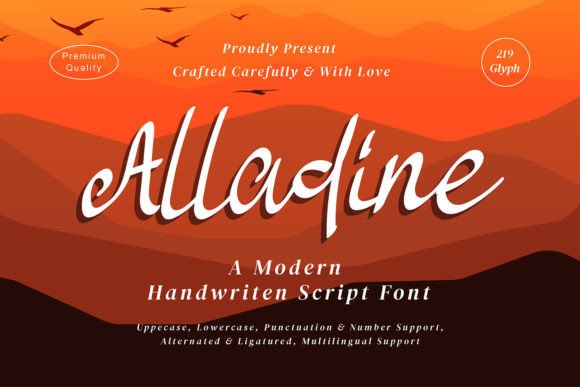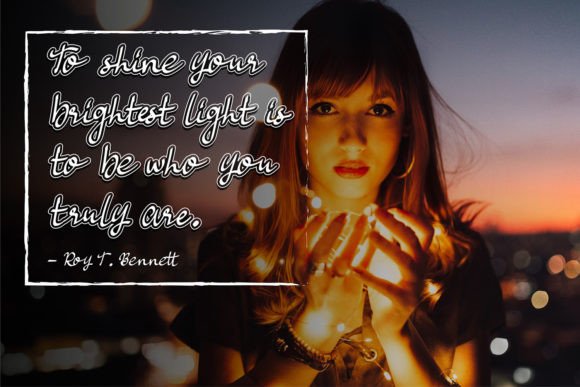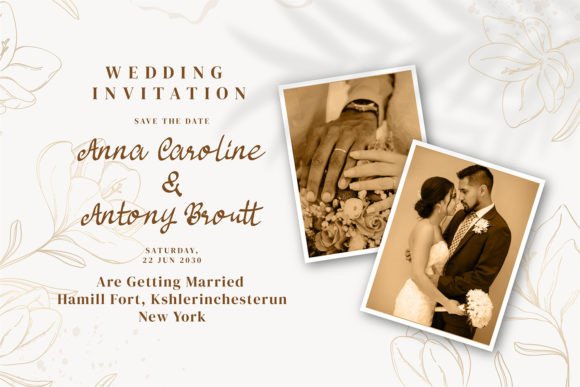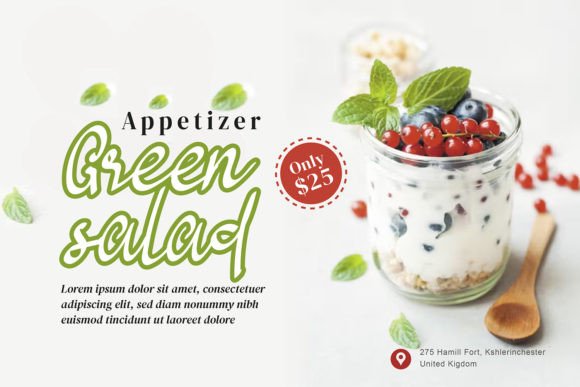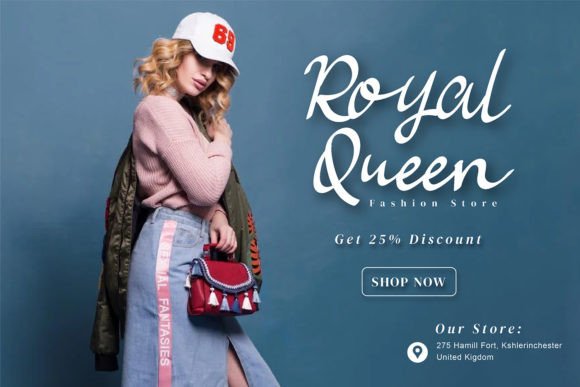
About Alladine Font
Alladine exudes both charm and elegance, making it a versatile and visually stunning choice for various design projects. This font shines on wedding invitations, thank you cards, quotes, greeting cards, logos, business cards, and any other design that benefits from a sophisticated handwritten touch.
The charm and elegance of Alladine make it well-suited for special occasions and refined branding. Whether you’re crafting elegant wedding stationery or creating a polished business card, Alladine stands out as a font that adds a touch of grace and sophistication.
Imagine Alladine enhancing your designs, whether it’s on exquisite wedding invitations, heartfelt thank you cards, or any project that requires an elegant handwritten feel. The font becomes a key element that not only adds charm but also infuses a sense of timeless elegance into your creations.
In summary, Alladine is more than just a font; it’s a design asset that brings charm and elegance to your projects. Embrace its sophisticated and handwritten style confidently, and let Alladine be the typeface that elevates the aesthetic of your various creative endeavors.